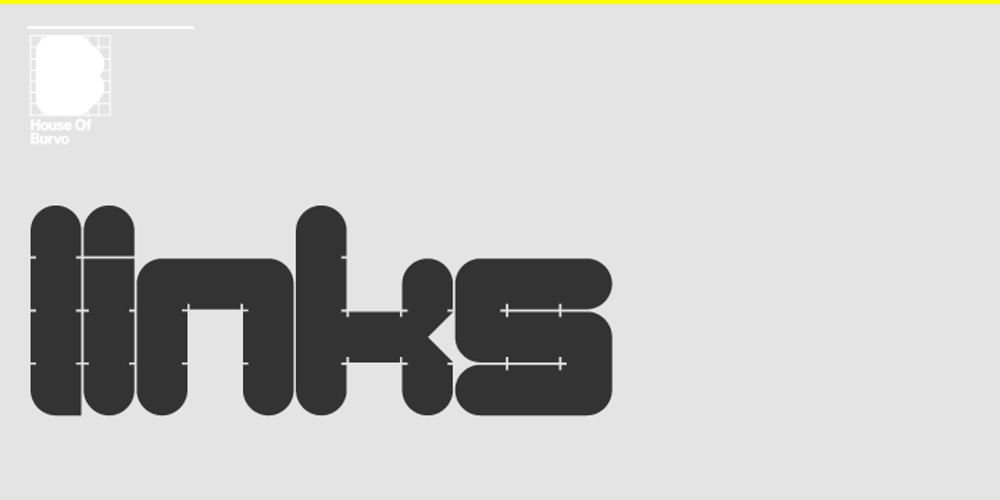
Links Font Family was designed by published by HouseOfBurvo. Links contains 4 styles and family package options. Links was built adhering to a strict grid of ‘linked’ squares; and comes with special “Grid Glyphs” that line up perfectly with all characters. These Grid Glyphs can be used to create an invisible grid for your layout or as a background to enhance your design. Perfect for posters, logos and headlines, this font is available in four styles; Round and Square with accompanying obliques. This font was inspired by much of the lettering from the Dutch movement, or Functionalism which in turn was a descendant of the International Style pioneered by the Swiss. In keeping with these traditions, Links was build adhering to a strict grid of linked squares, taking a clear scientific approach to construct each character. One of the main features of International Style is the implementation of a Grid. This font has built in special characters that I call ‘Grid Glyphs’; these Grid Glyphs line up perfectly with every character, enabling you to construct your own grid that echoes the form of the characters. These glyphs can also be used to create a background for your layout, as can be seen in the gallery pictures.